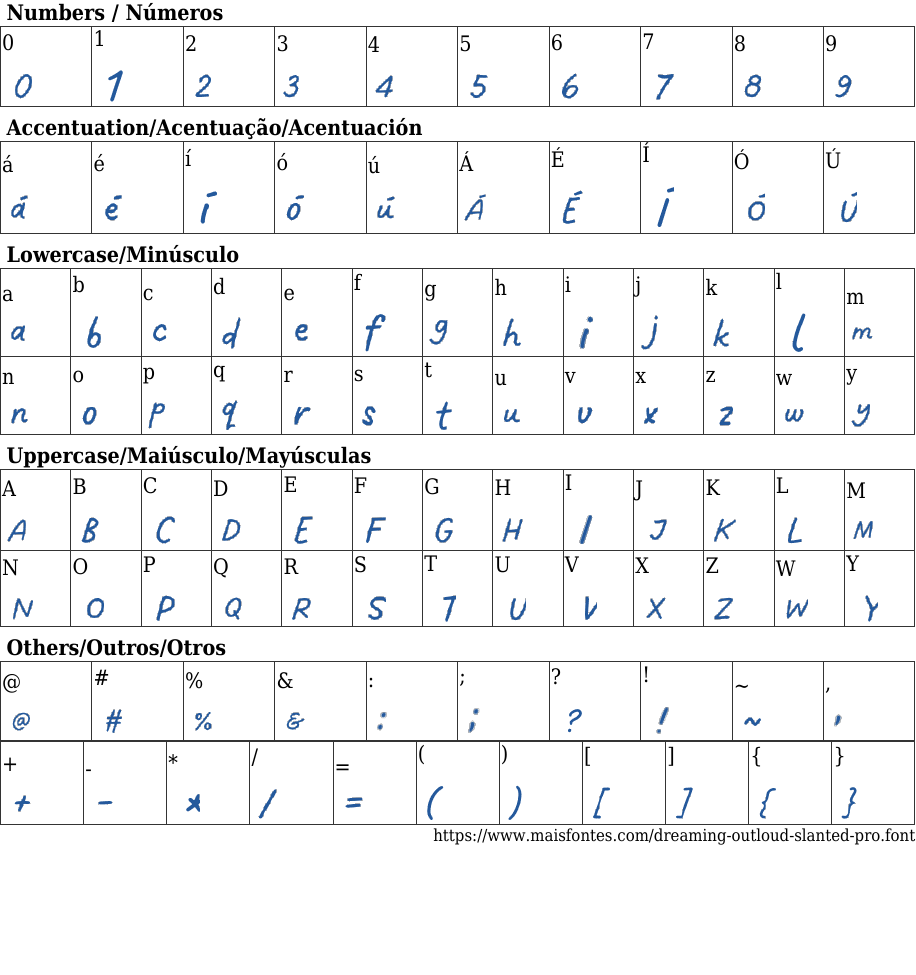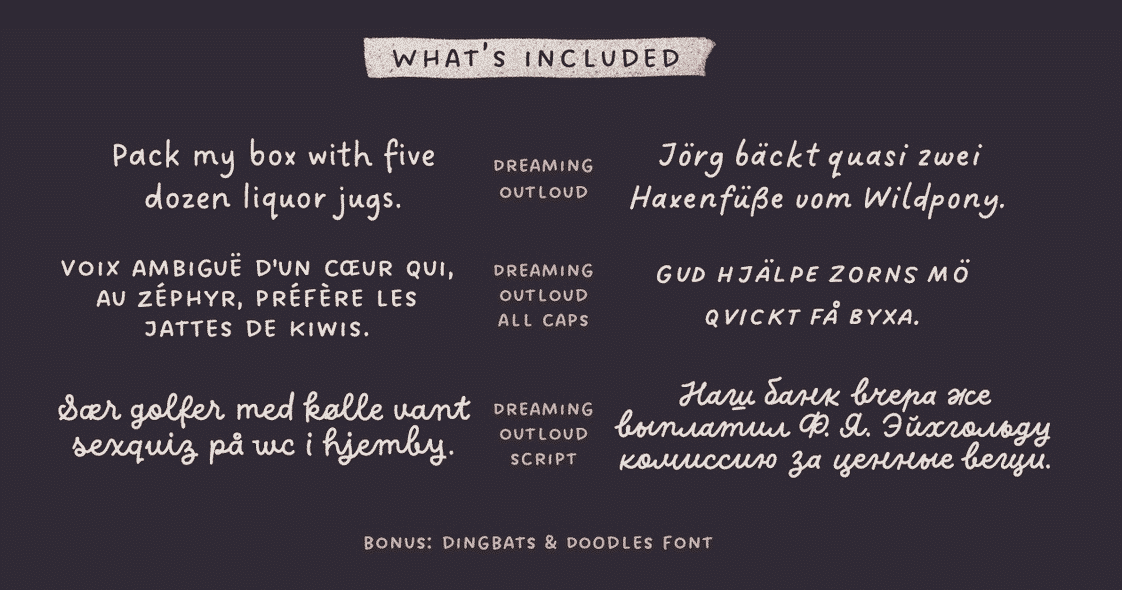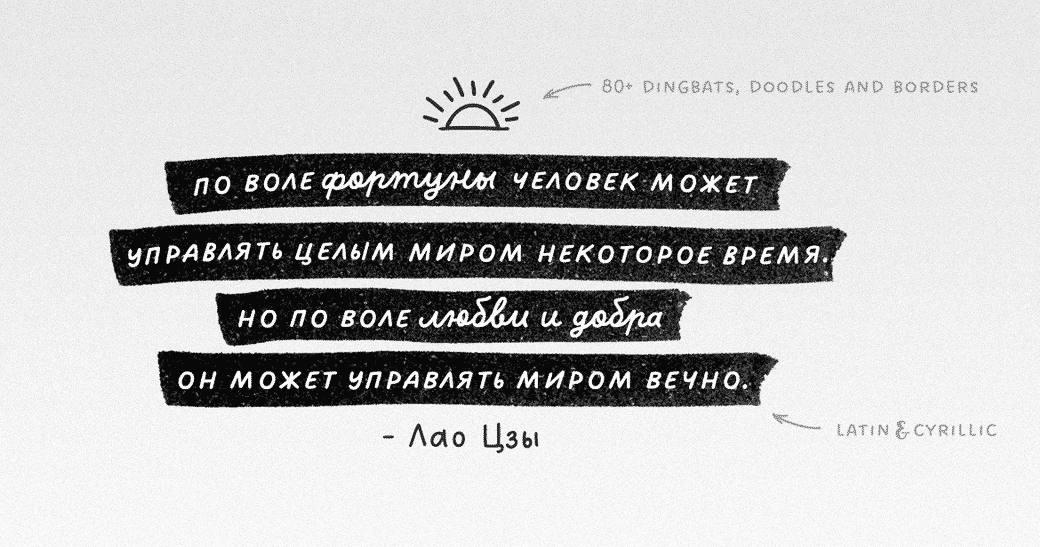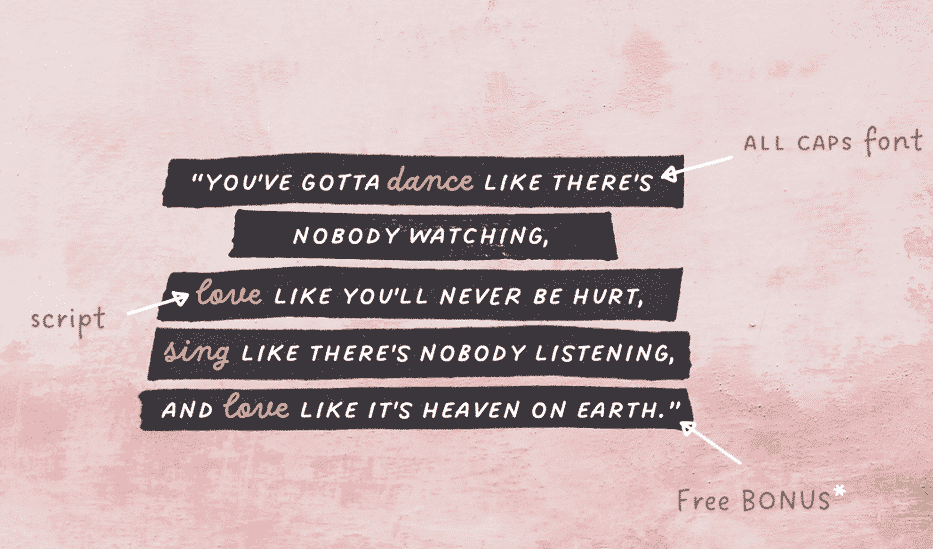
Dreaming Outloud Pro Font - Explore dreaming outloud designed by elena genova at adobe fonts. 8 handwritten typefaces made to complement each other in the best possible way. Adobe fonts is the easiest way to bring great. Discover the free dreaming outloud pro script font at free font download ! Elevate your designs with dreaming outloud pro script. The dreaming outloud pro font allows you to take your projects to incredible heights. See how to download dreaming outloud pro for free! A typeface with 3 styles, available from adobe fonts for sync and web use. Installable on pc, mac, linux, ios, and android platforms. Check and download for free.
Dreaming outloud regular pro otf (400) by. Ideal for children's books, greeting cards, and informal branding. Adobe fonts is the easiest way to bring great. Elevate your designs with dreaming outloud pro script. The dreaming outloud pro font allows you to take your projects to incredible heights. Check and download for free. Discover the free dreaming outloud pro script font at free font download ! Installable on pc, mac, linux, ios, and android platforms. A typeface with 3 styles, available from adobe fonts for sync and web use. Explore dreaming outloud designed by elena genova at adobe fonts.
8 handwritten typefaces made to complement each other in the best possible way. Ideal for children's books, greeting cards, and informal branding. Check and download for free. Adobe fonts is the easiest way to bring great. A typeface with 3 styles, available from adobe fonts for sync and web use. Elevate your designs with dreaming outloud pro script. The dreaming outloud pro font allows you to take your projects to incredible heights. Explore dreaming outloud designed by elena genova at adobe fonts. Installable on pc, mac, linux, ios, and android platforms. Discover the free dreaming outloud pro script font at free font download !
8 handwritten typefaces made to complement each other in the best possible way. Check and download for free. A typeface with 3 styles, available from adobe fonts for sync and web use. The dreaming outloud pro font allows you to take your projects to incredible heights. See how to download dreaming outloud pro for free!
Ideal for children's books, greeting cards, and informal branding. Dreaming outloud regular pro otf (400) by. 8 handwritten typefaces made to complement each other in the best possible way. The dreaming outloud pro font allows you to take your projects to incredible heights. See how to download dreaming outloud pro for free!
Dreaming Outloud Font
Discover the free dreaming outloud pro script font at free font download ! 8 handwritten typefaces made to complement each other in the best possible way. Installable on pc, mac, linux, ios, and android platforms. Elevate your designs with dreaming outloud pro script. Dreaming outloud regular pro otf (400) by.
Dreaming Outloud Font
The dreaming outloud pro font allows you to take your projects to incredible heights. Check and download for free. Elevate your designs with dreaming outloud pro script. Installable on pc, mac, linux, ios, and android platforms. Discover the free dreaming outloud pro script font at free font download !
Check and download for free. Installable on pc, mac, linux, ios, and android platforms. Explore dreaming outloud designed by elena genova at adobe fonts. Discover the free dreaming outloud pro script font at free font download !
The Dreaming Outloud Pro Font Allows You To Take Your Projects To Incredible Heights.
Ideal for children's books, greeting cards, and informal branding. A typeface with 3 styles, available from adobe fonts for sync and web use. 8 handwritten typefaces made to complement each other in the best possible way. Adobe fonts is the easiest way to bring great.
Elevate your designs with dreaming outloud pro script.